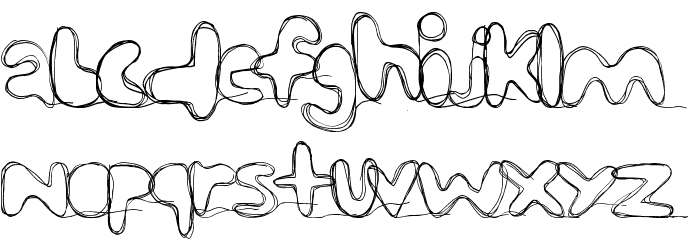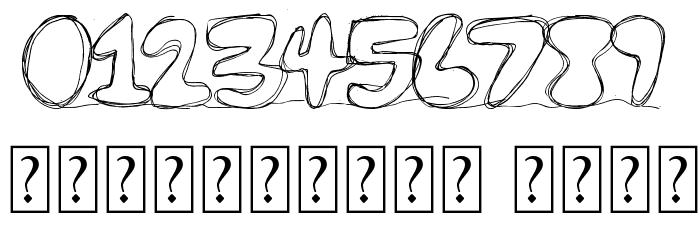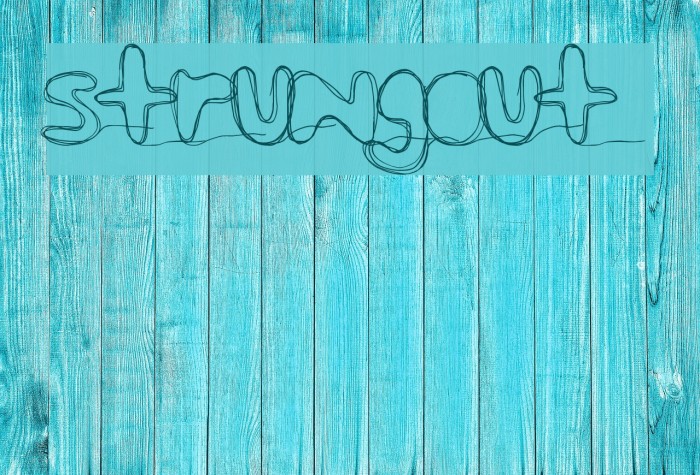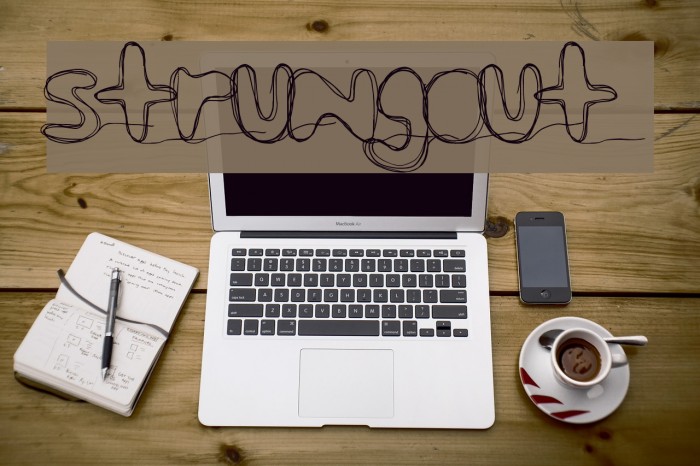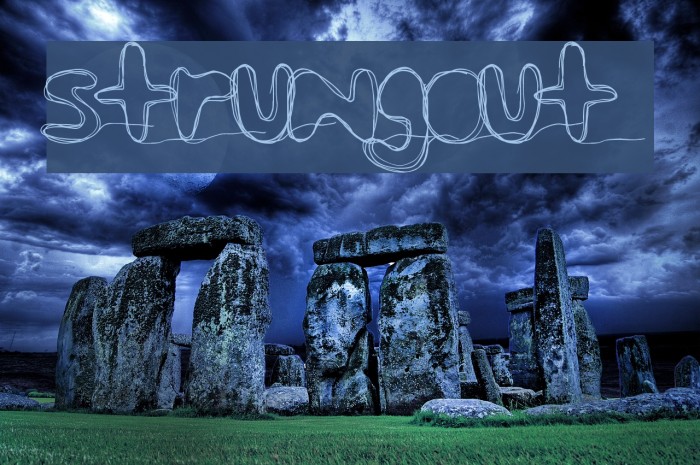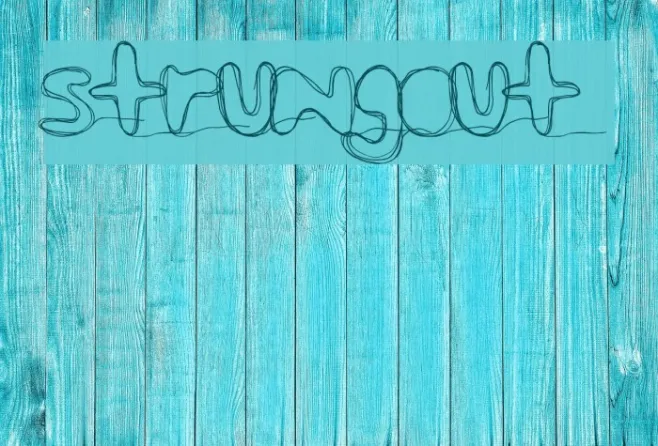
strungout Font
This font features a playful and whimsical design with a hand-drawn aesthetic. The letters are interconnected with a continuous line, creating a sense of movement and fluidity. Each character is outlined with a bold stroke, giving it a distinctive and eye-catching appearance. The uppercase and lowercase letters maintain a consistent style, while the numbers and special characters follow the same playful theme. The overall look is casual and artistic, making it suitable for creative projects that require a unique and informal touch.
A playful, hand-drawn font with interconnected letters and bold outlines.
- Proposed Projects: Ideal for children's book covers, playful branding, creative posters, and artistic invitations.
- Use Case: Logos, Headlines, Creative projects